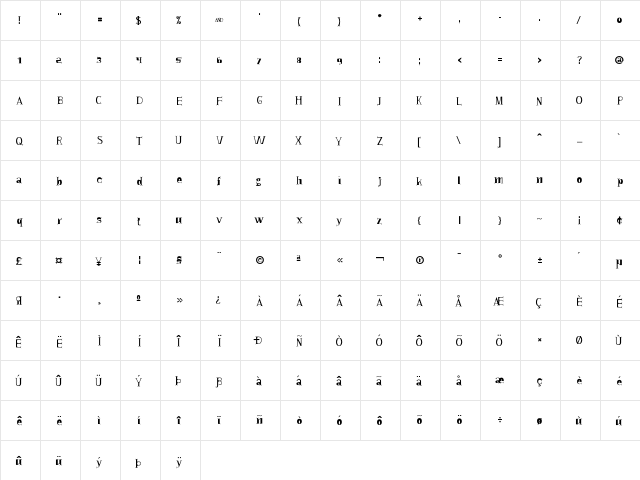
Collonist Regular
Design Context for Collonist Typeface
Collonist offers clean, dependable letterforms without strong stylistic allegiance, making it a practical choice for designers who need flexibility.